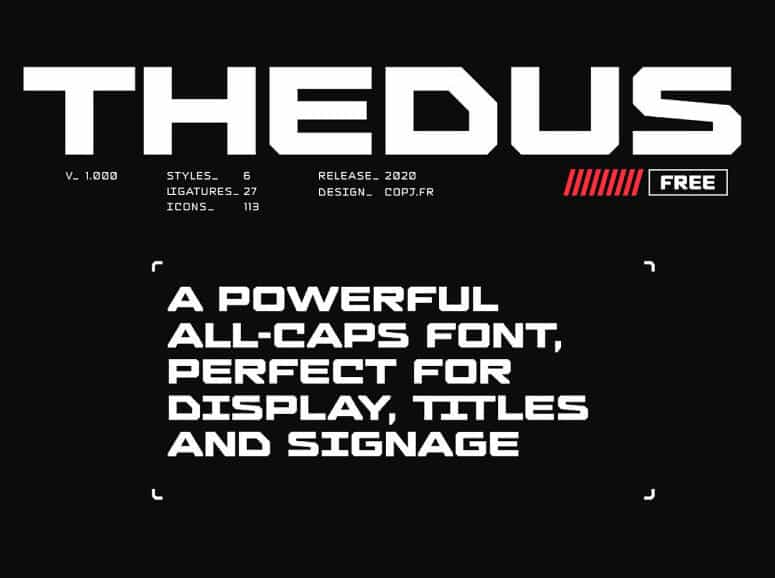
Introducing Thedus Display Font. This geometric display typeface takes its inspiration from the early desktop systems, and video games. his style approach gives it a distinct futuristic, old sci-fi movie titles look. A powerful all caps font, perfect for display, titles and signage.
Thedus Display Font